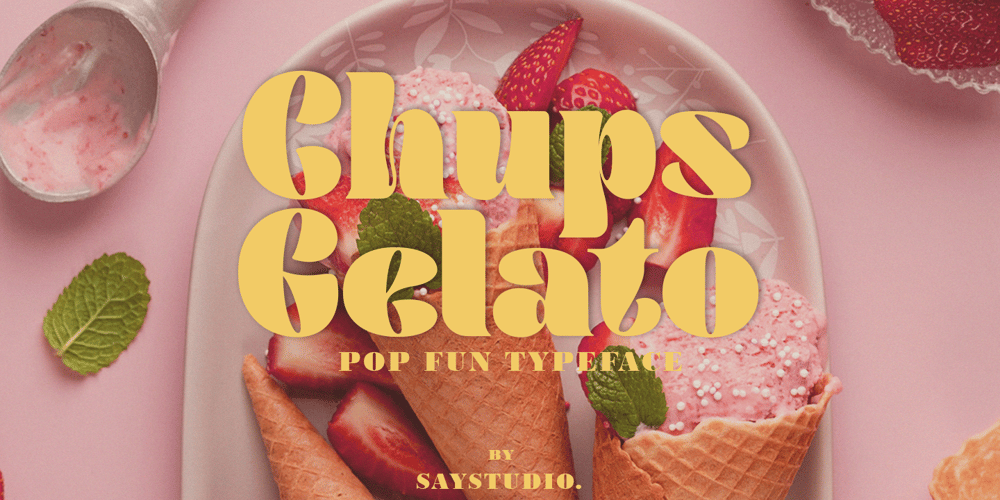
Chups Gelato Font Family was designed by Mussyayin and published by Say Studio. Chups Gelato contains 1 styles and family package options. Chups Gelato is a Pop Fun serif font with unique basic letters and look fun . modern and classic serif font with a clear and bold look. It’s a very versatile font and perfect for branding design, logos, greeting cards, title packaging. and other designs. Immediately use our fonts to make your work even more amazing.What’s Included :- Standard glyphs- Multilingual- Web Font- Works on PC & Mac Simple installationsWish you enjoy our font and if you have a question, don’t hesitate to drop message & I’m happy to help :)Thanks youSay Studio